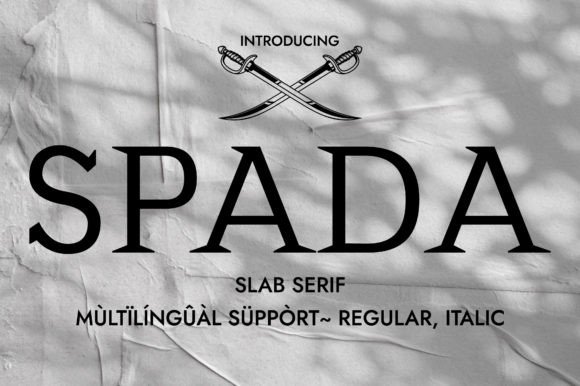
Embrace the beauty of elegance with Spada Font, a masterpiece from Minimalistartstudio. Experience the exquisite fusion of sophistication and charm, as you delve into the realm of delicate typography.
With its sharp and elegant strokes, Spada Font transcends the boundaries of ordinary typefaces, inviting you to explore a world of refined aesthetics. Its unique glyphs construction is a testament to the meticulous artistry that went into its creation, offering a symphony of visual harmony and balance.
As you embark on your creative journey with Spada Font, you will discover its versatility as a perfect companion for a wide array of projects. Whether you're designing captivating wedding cards that exude timeless romance or crafting alluring perfume and fashion design presentations, Spada Font will elevate your vision, adding a touch of elegance to every concept.
Step into the realm of captivating typography and let Spada Font guide you towards design excellence. Immerse yourself in the beauty of its clean lines and elegant curves, discovering a font that truly captures the essence of sophistication.
From packaging design that demands attention to presentations that leave a lasting impression, Spada Font empowers you to create designs that speak volumes. Its delicate touch and elegant note add a timeless charm to any project, ensuring a standout presence that commands admiration.